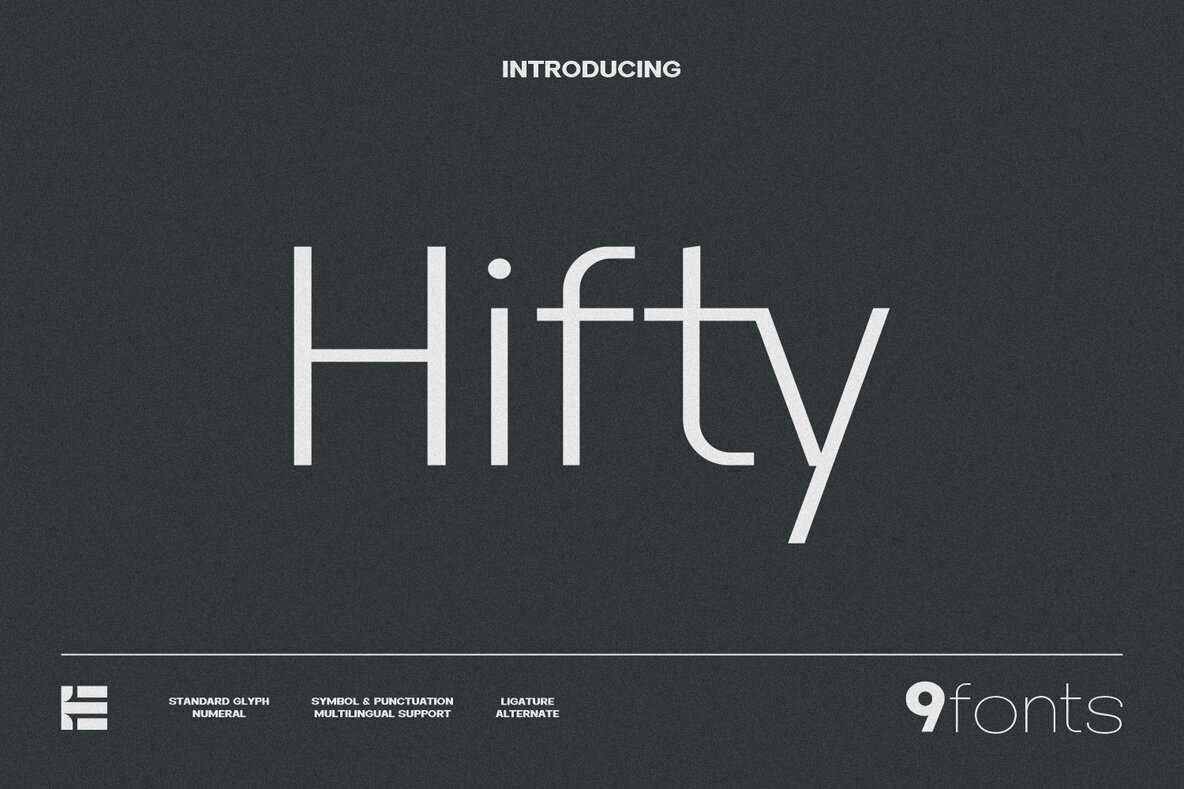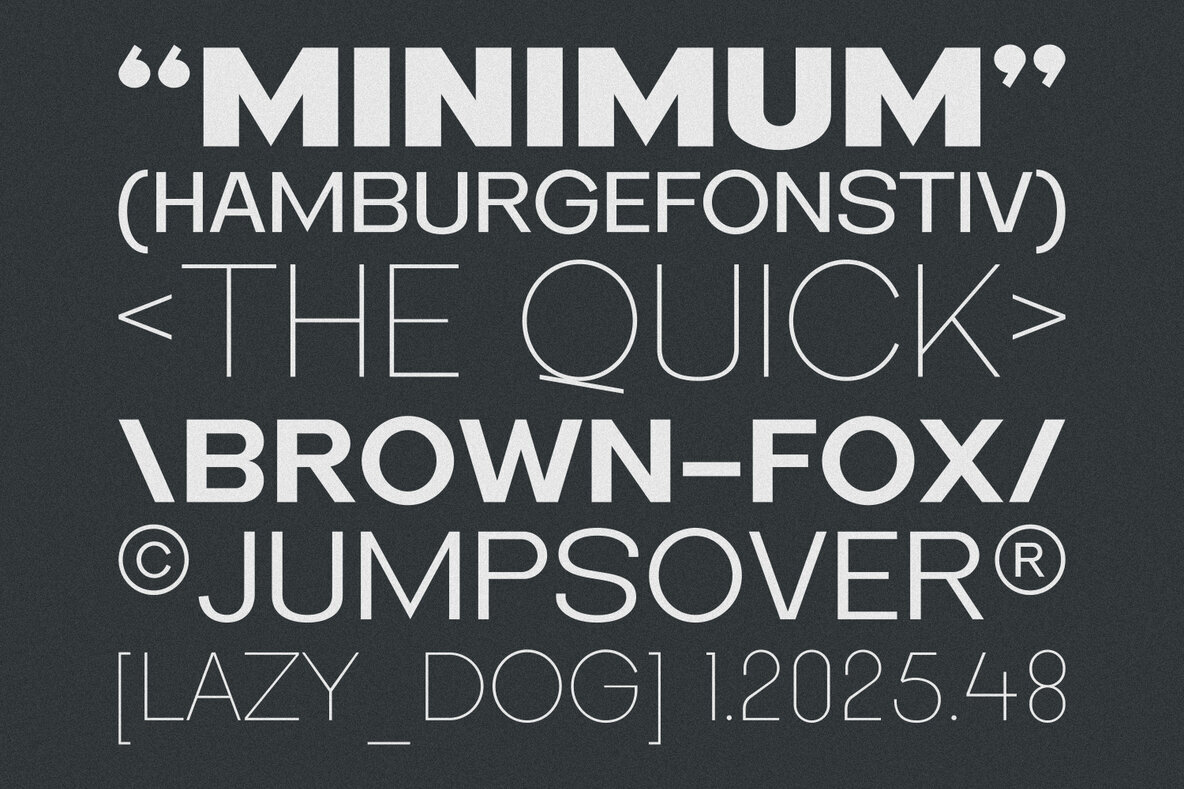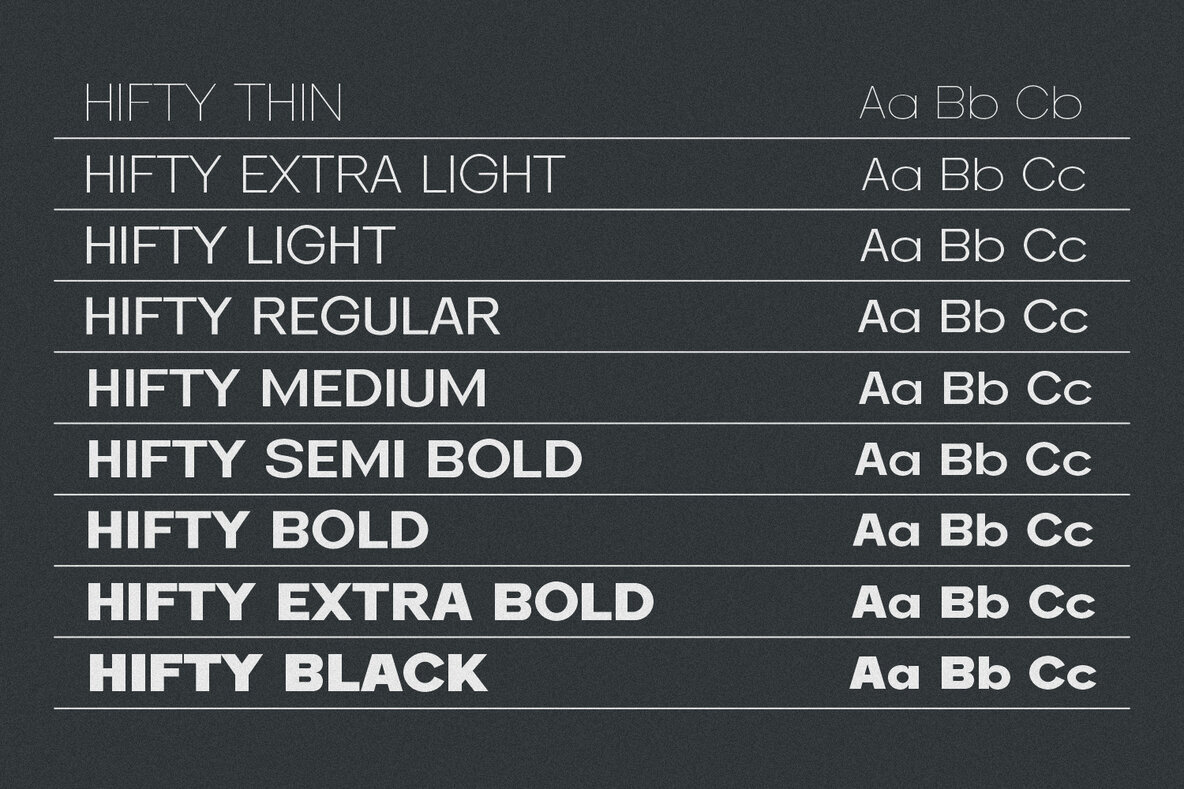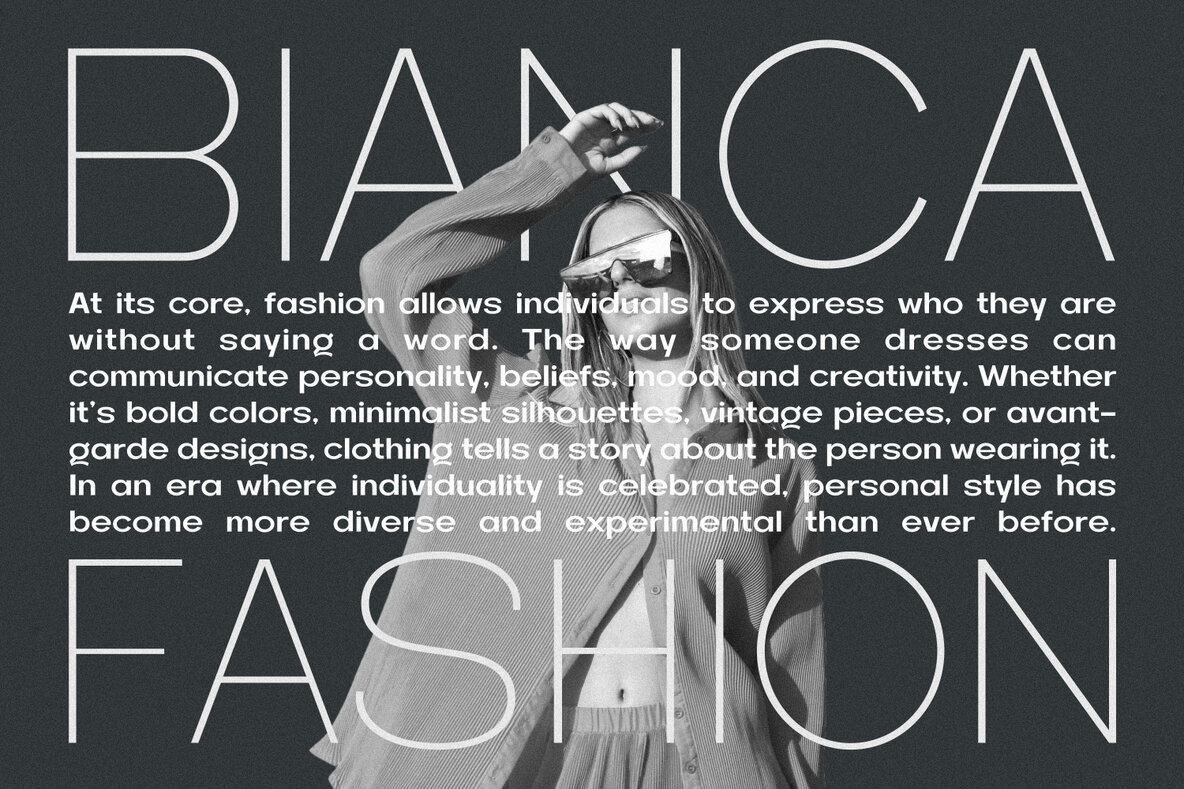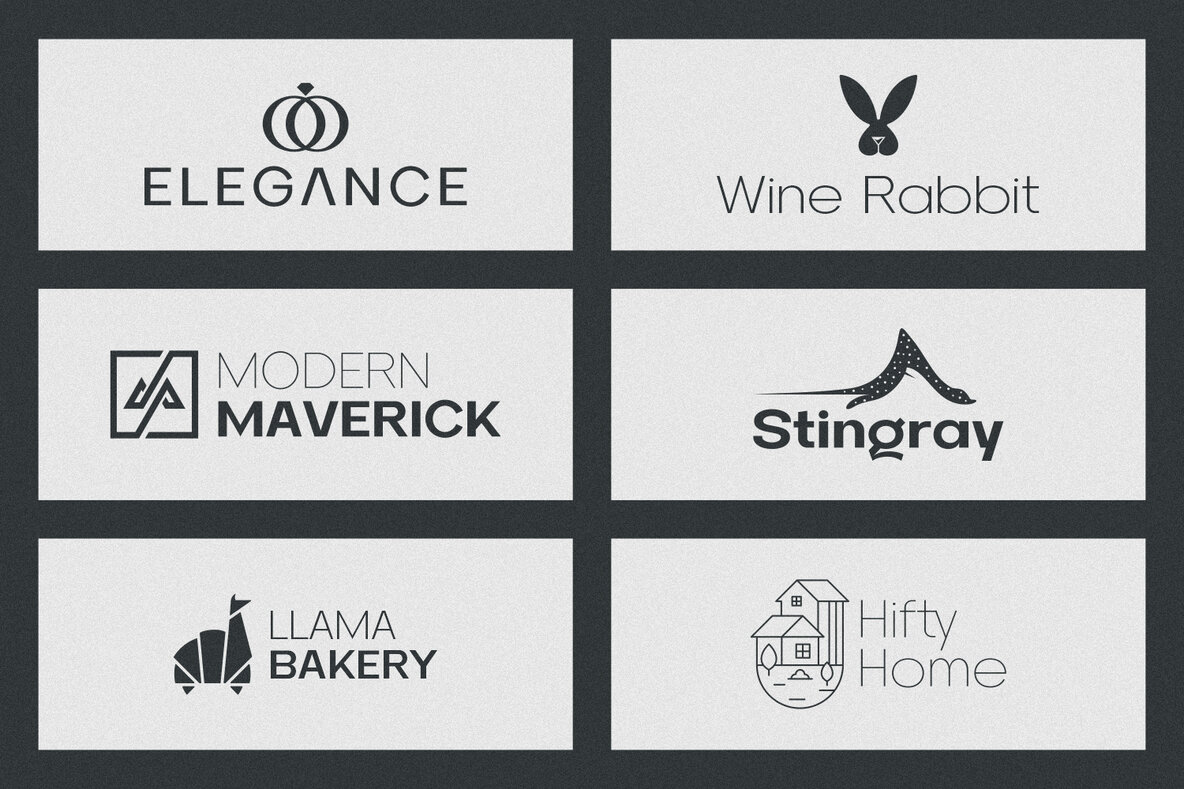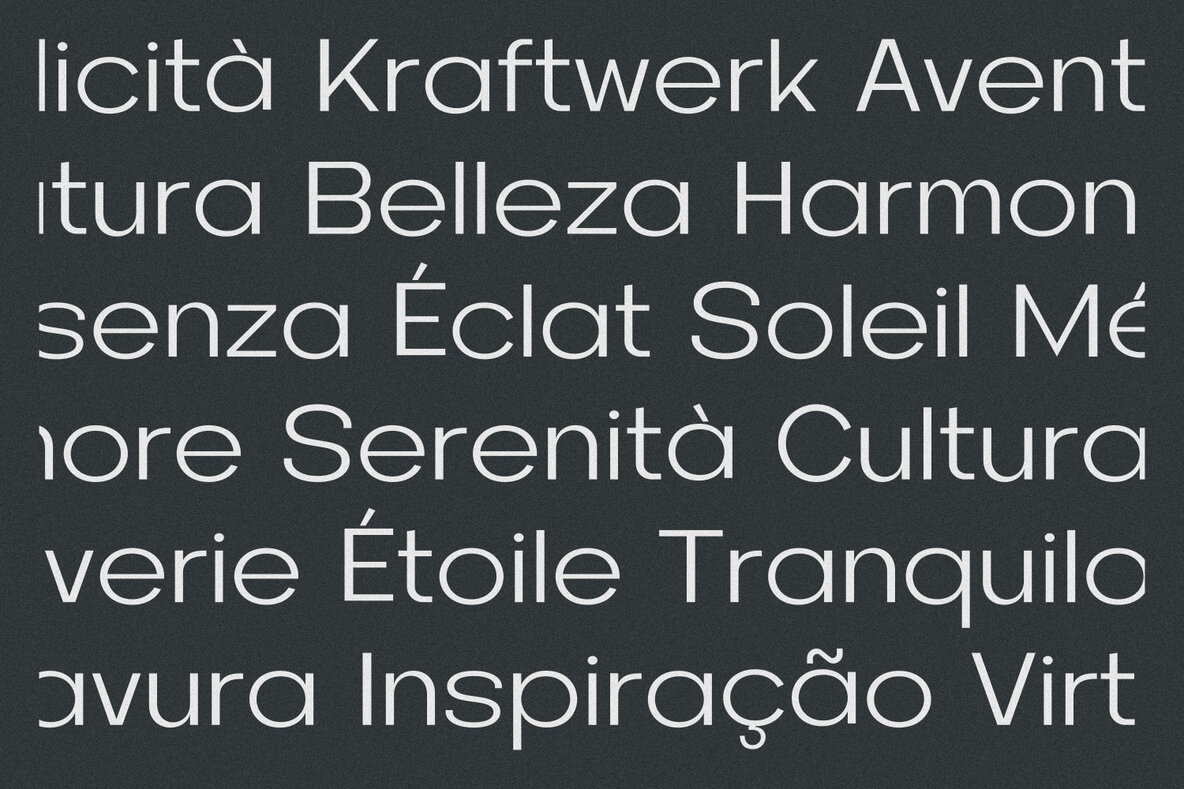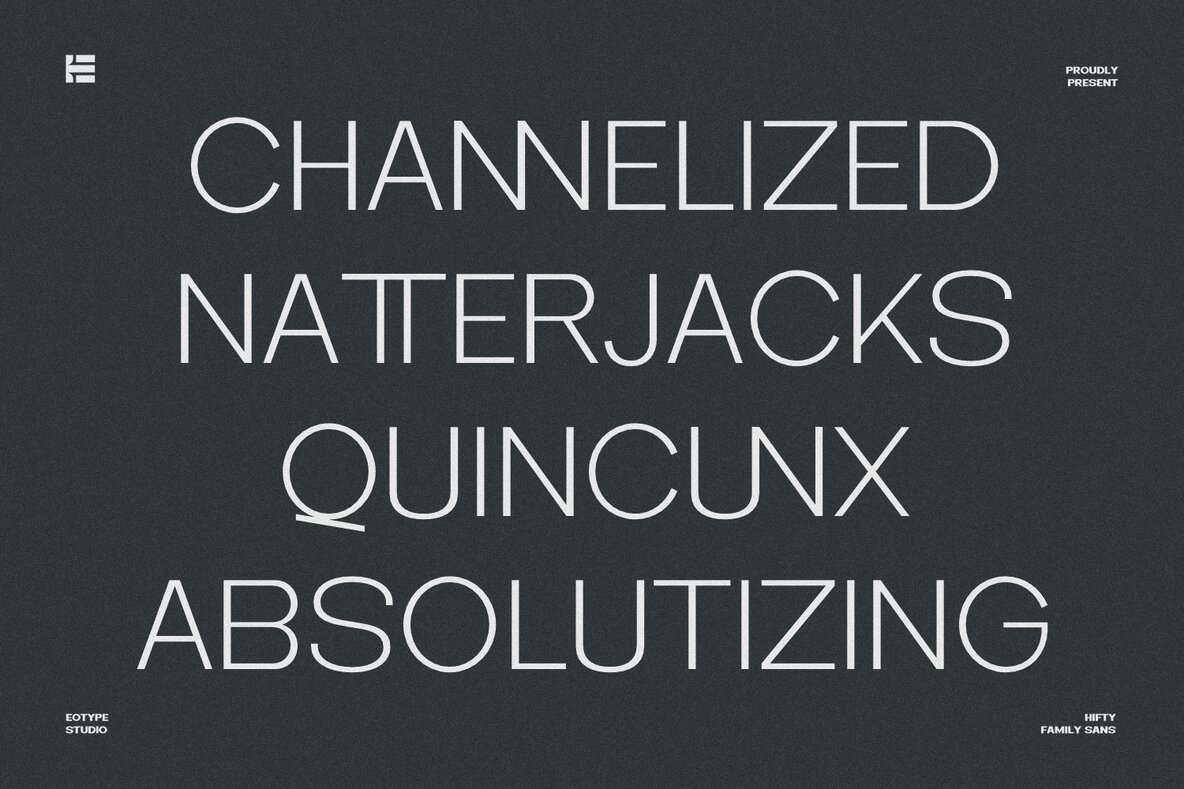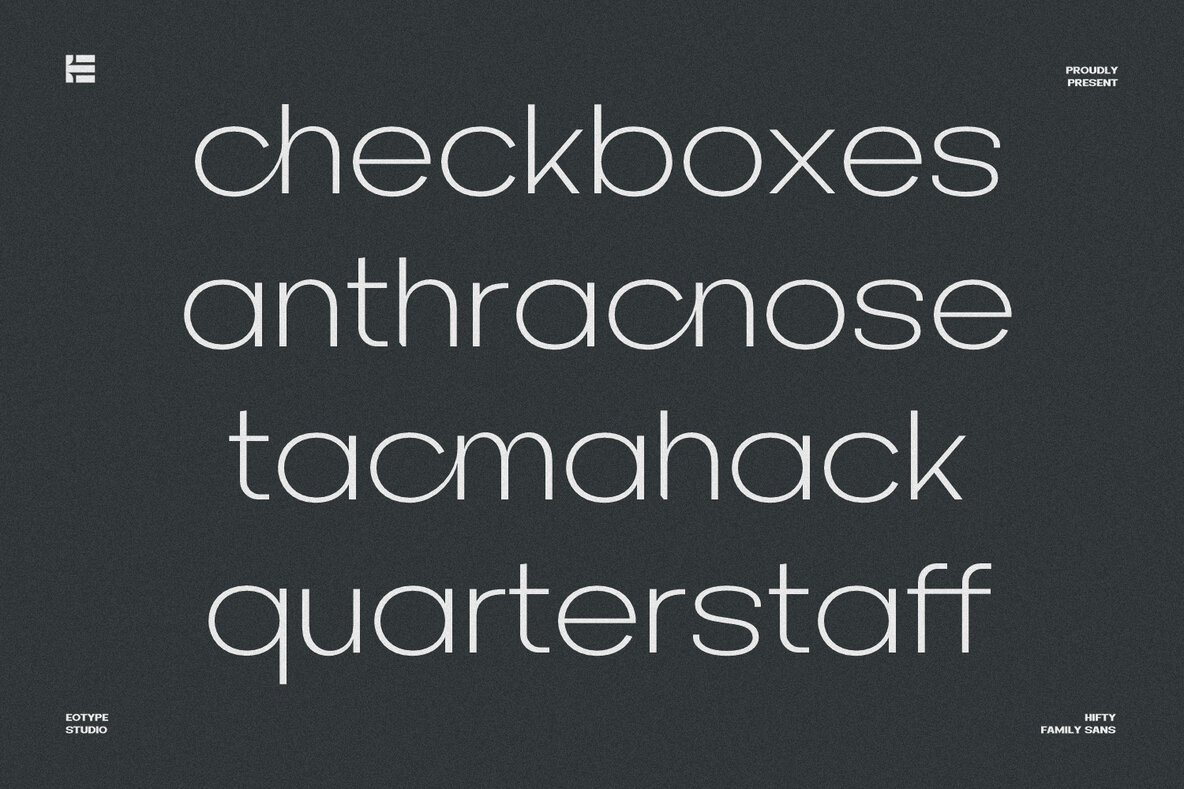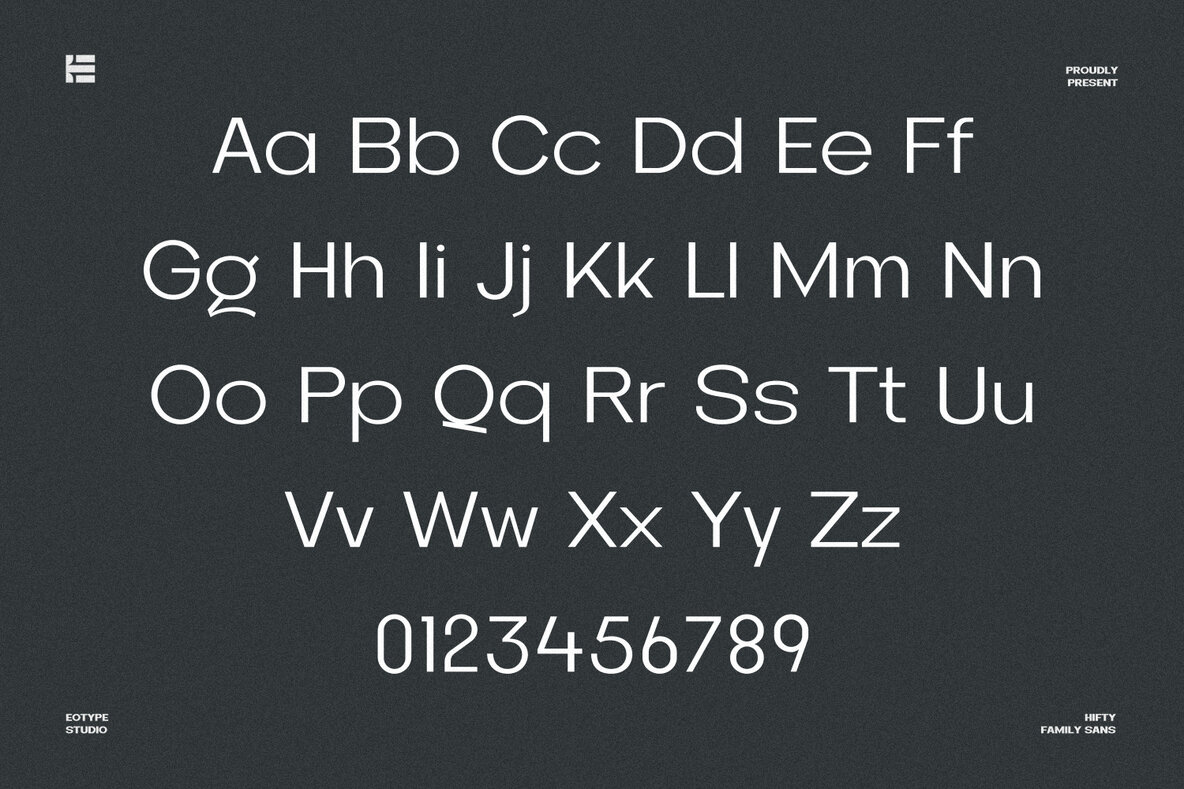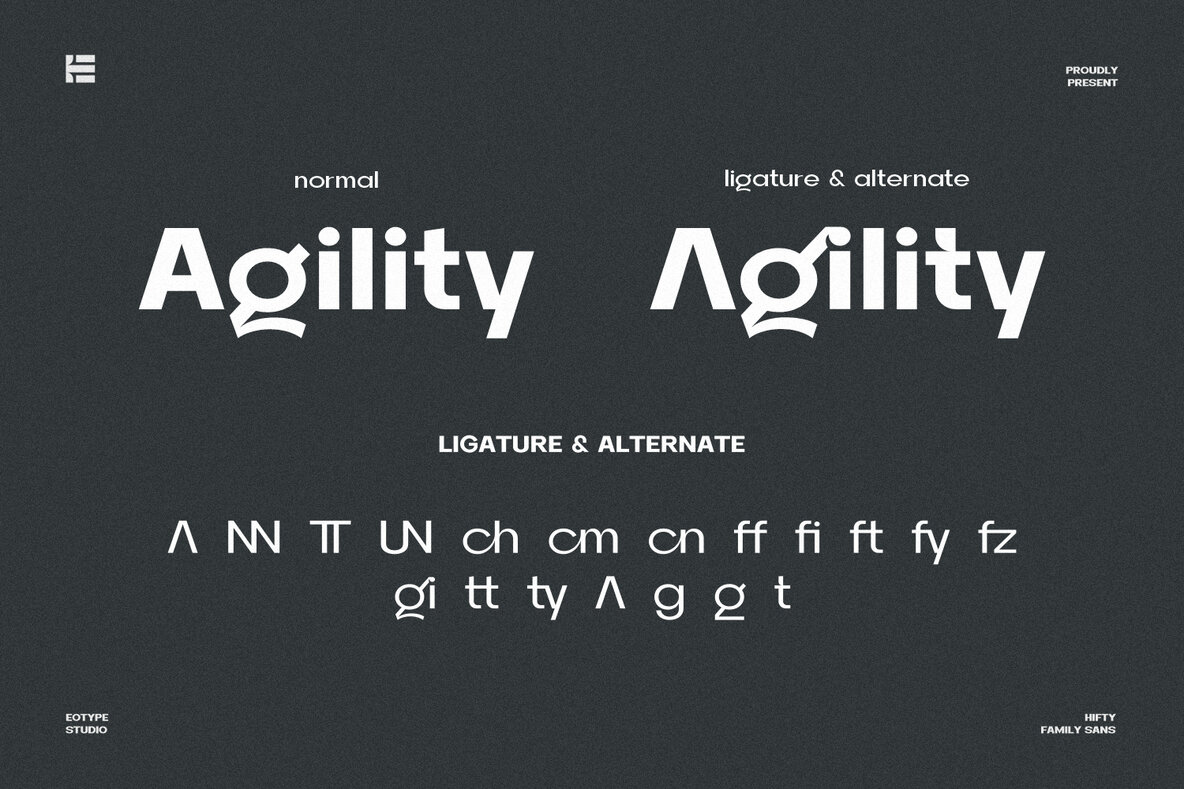
Hifty Font
Hifty Sans Serif Font is the epitome of clean design tailored for modern branding, offering a blend of simplicity and readability. Its sleek, contemporary aesthetic suits both print and digital platforms, making it a versatile addition to any designer's toolkit. With nine distinct styles ranging from Thin to Black, Hifty adapts effortlessly to any design need. Whether you're aiming for a refined or commanding presence, this font has you covered.Hifty Sans Serif: Sleek Typeface for Modern Branding
Distinct Styles